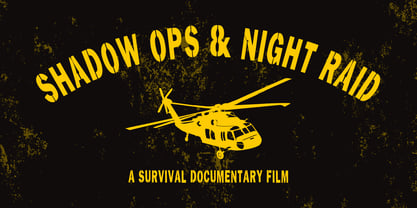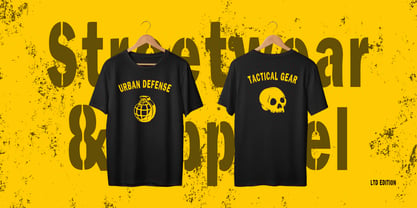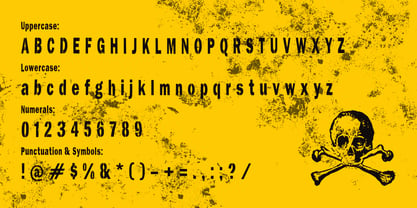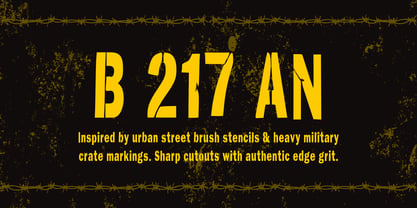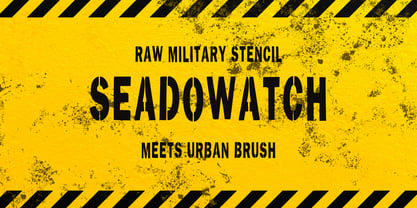
Seadowatch
Seadowatch – Raw Military Stencil Meets Urban Street Power
Seadowatch is a striking, industrial stencil typeface designed to bridge the gap between heavy-duty military equipment labeling and raw, expressive urban brush lettering. Inspired by the unapologetic, bold, hand-painted lettering found on local sanitation service signs ("Sedot WC") and rugged field army gear, Seadowatch commands immediate attention with its tall, upright stance and sharp cutout details.
Crafted for maximum visual impact, this family features clean geometric stencil cuts combined with the textured, energetic edges of physical print techniques. It delivers an authentic balance of authoritative military precision and gritty, real-world street aesthetics.
Uncompromising Style & Versatility
The Seadowatch font family comes in 2 dynamic styles:
• Seadowatch Regular: An upright, solid, and commanding display stencil ideal for bold headers, warning signs, high-impact branding, and military-inspired apparel.
• Seadowatch Slant: An aggressive, forward-leaning variant that adds speed, momentum, and actionable energy to poster design, sports graphics, and action title sequences.
Both styles feature crisp stencil breaks, clean character structures, and high contrast that remain highly legible across both printed mediums and digital displays.
Design Concept & Inspiration
The concept behind Seadowatch emerged from observing real-world functional typography: from ammo crate serials and tactical military gear to the quick, high-contrast brush stencils used in street advertising. By capturing the urgent, raw essence of hand-cut stencil plates and wet brush-print textures, Seadowatch brings authentic, non-digitized grit to modern graphic design projects.
Recommended Uses & Applications
Seadowatch is optimized for high-impact display typography, including:
• Streetwear & Apparel: T-shirt graphics, patch designs, combat gear branding, and urban activewear.
• Posters & Covers: Event flyers, movie titles, album covers, gaming UI, and tactical book jackets.
• Packaging & Branding: Craft beverage labels, industrial equipment branding, merchandise, and athletic logos.
• Signage & Digital: Warning graphics, YouTube thumbnails, video game UI, and promotional social media campaigns.
Pairing Suggestions
To achieve a balanced typographic layout, pair Seadowatch display titles with a clean, neutral sans-serif for body text (such as Helvetica, DIN, or Roboto) or a high-tech monospace typeface for tactical metadata and specs.